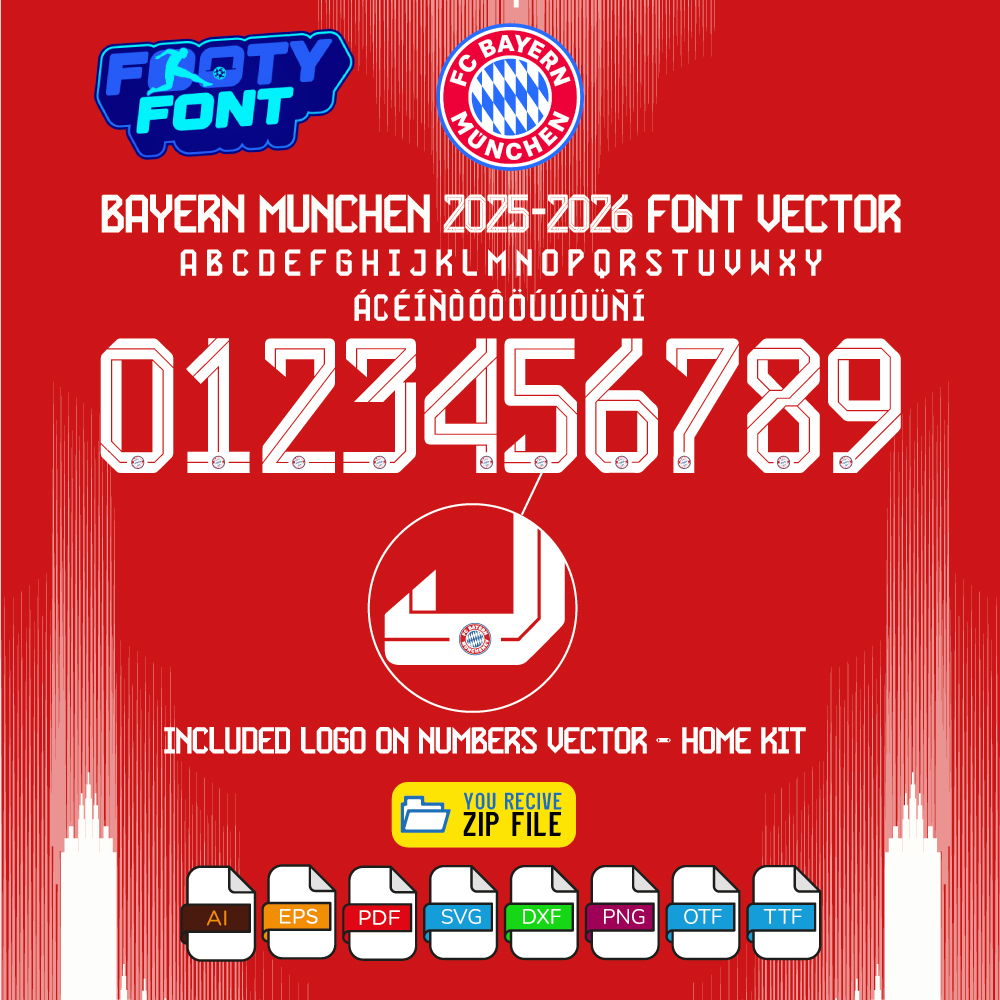
About the Bayern Munich 2026 Football Font
Embody the legendary spirit of “Mia san Mia” with this font, inspired by the FC Bayern München 2026 UCL home kit. This is a high-quality typeface designed to replicate the look of the iconic red jersey worn by the team for Champions League nights at the Allianz Arena.
This font captures the style worn by the world-class superstars of Die Roten like Harry Kane, Jamal Musiala, and Leroy Sané. It’s perfect for fans creating their own custom jersey designs for personal use, digital posters celebrating a victory, or any other project that shows your support for Germany’s most successful club.
Use this font to bring the Bavarian style into your designs-whether for custom jersey graphics, fan merchandise, posters, or social media content.